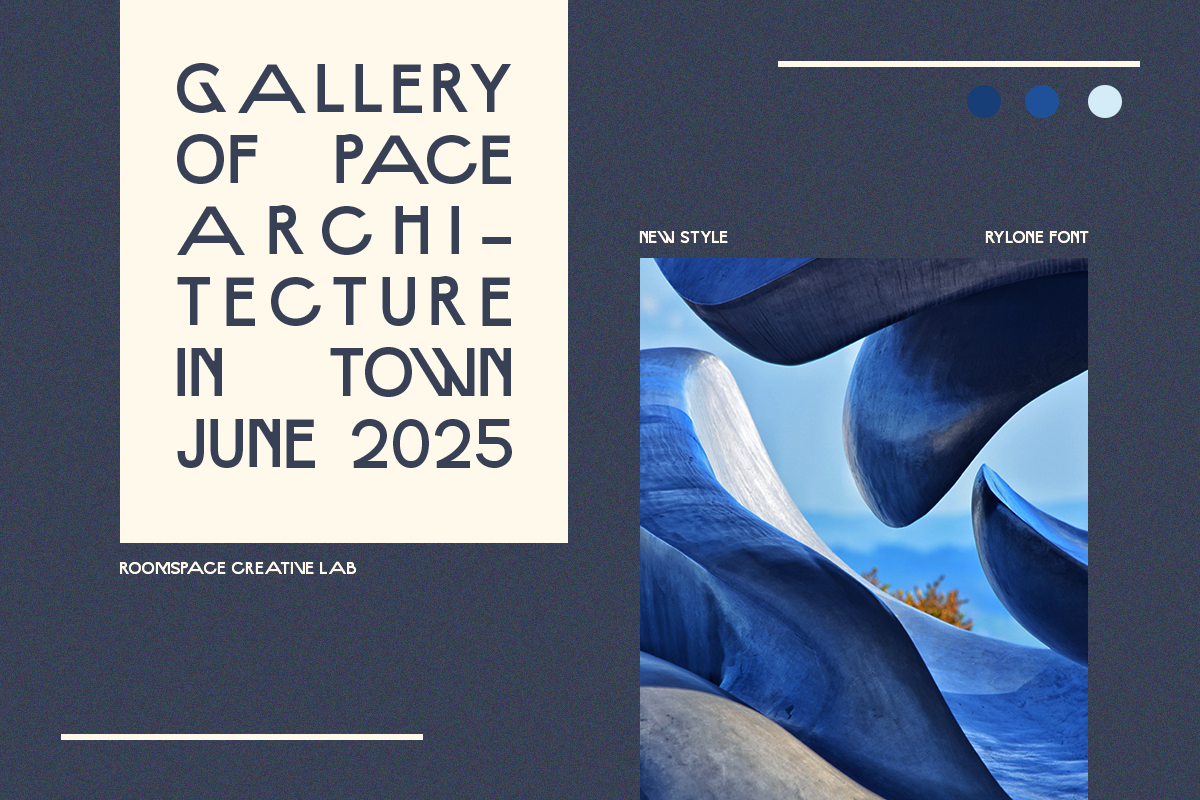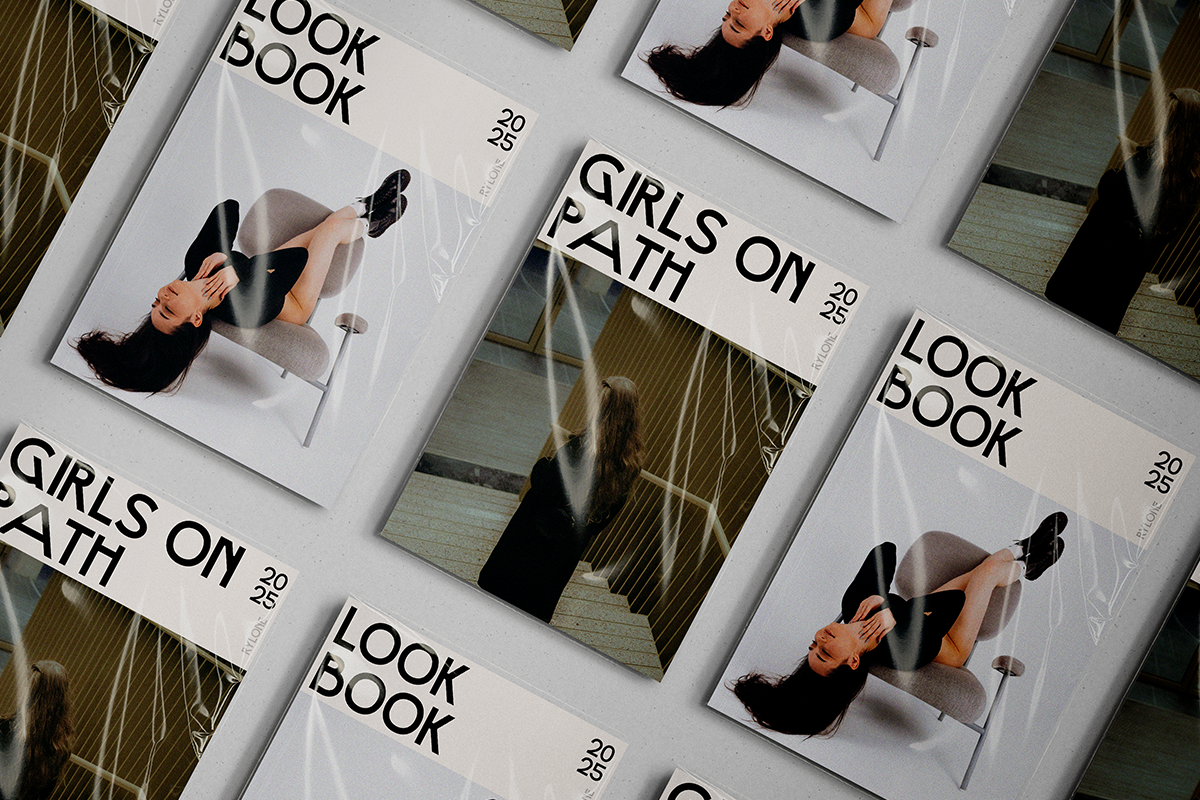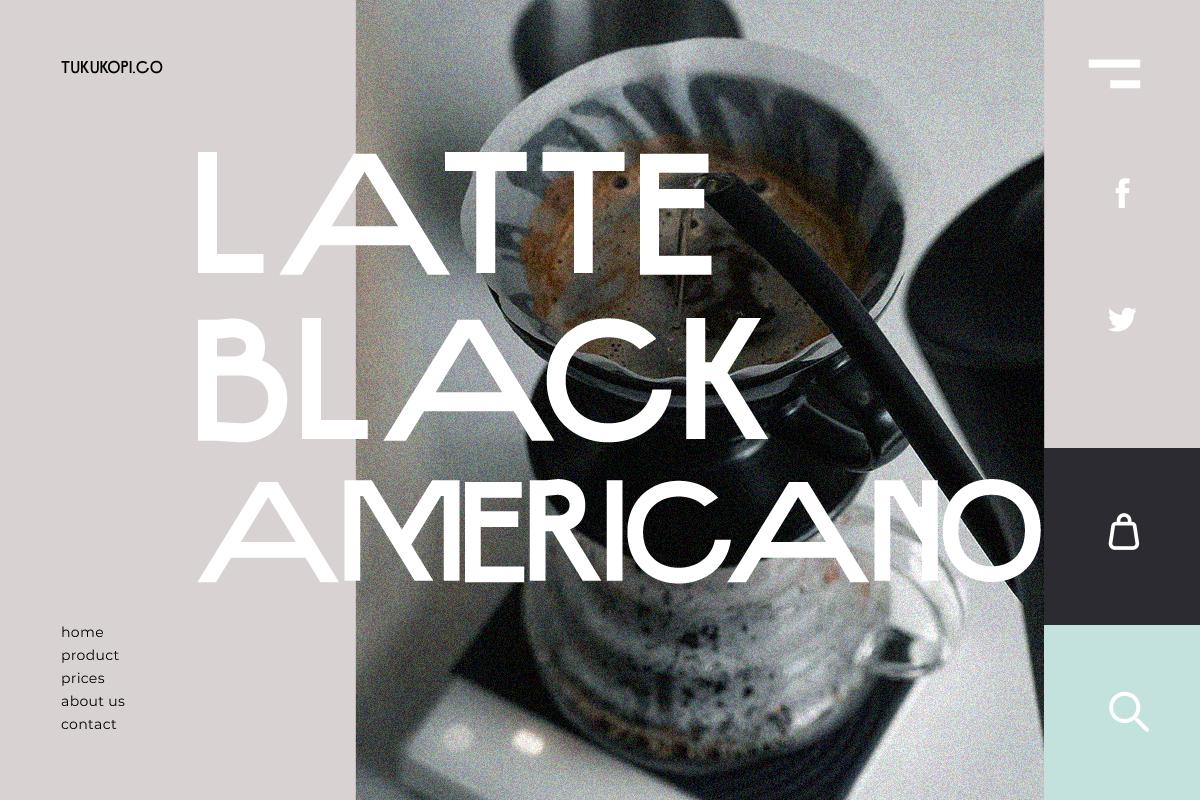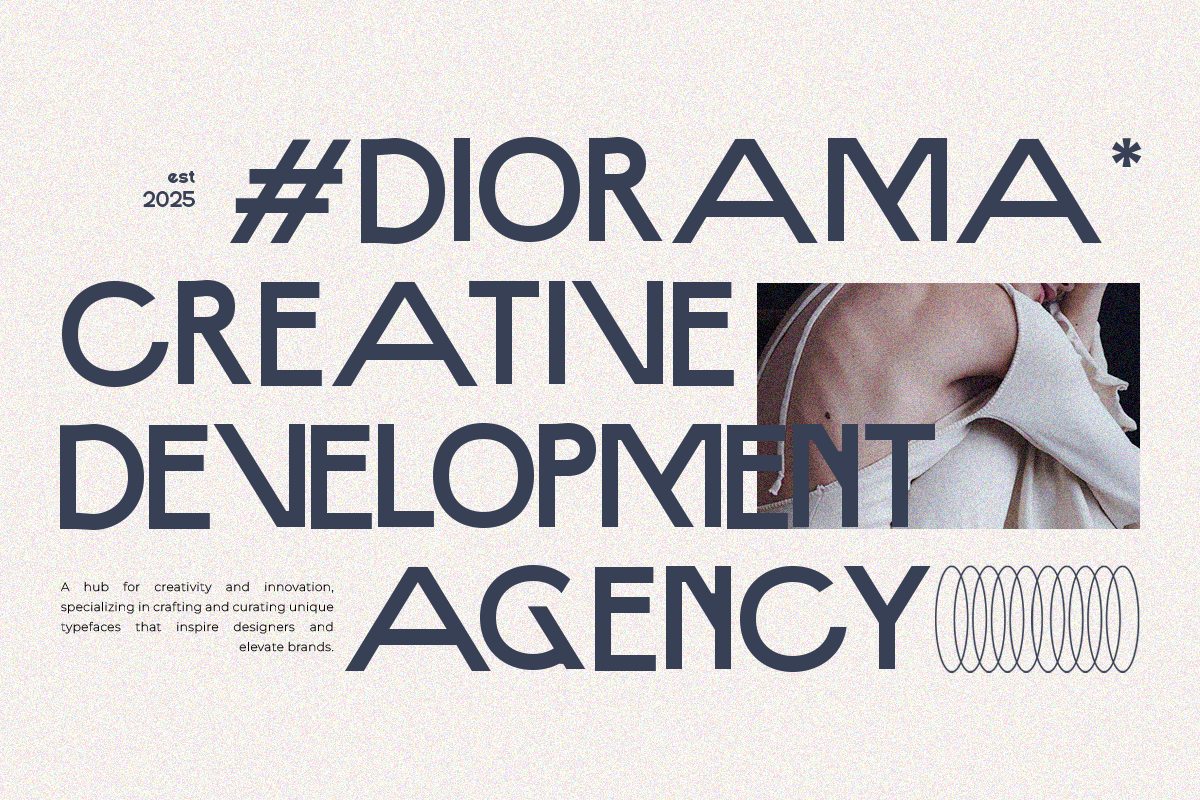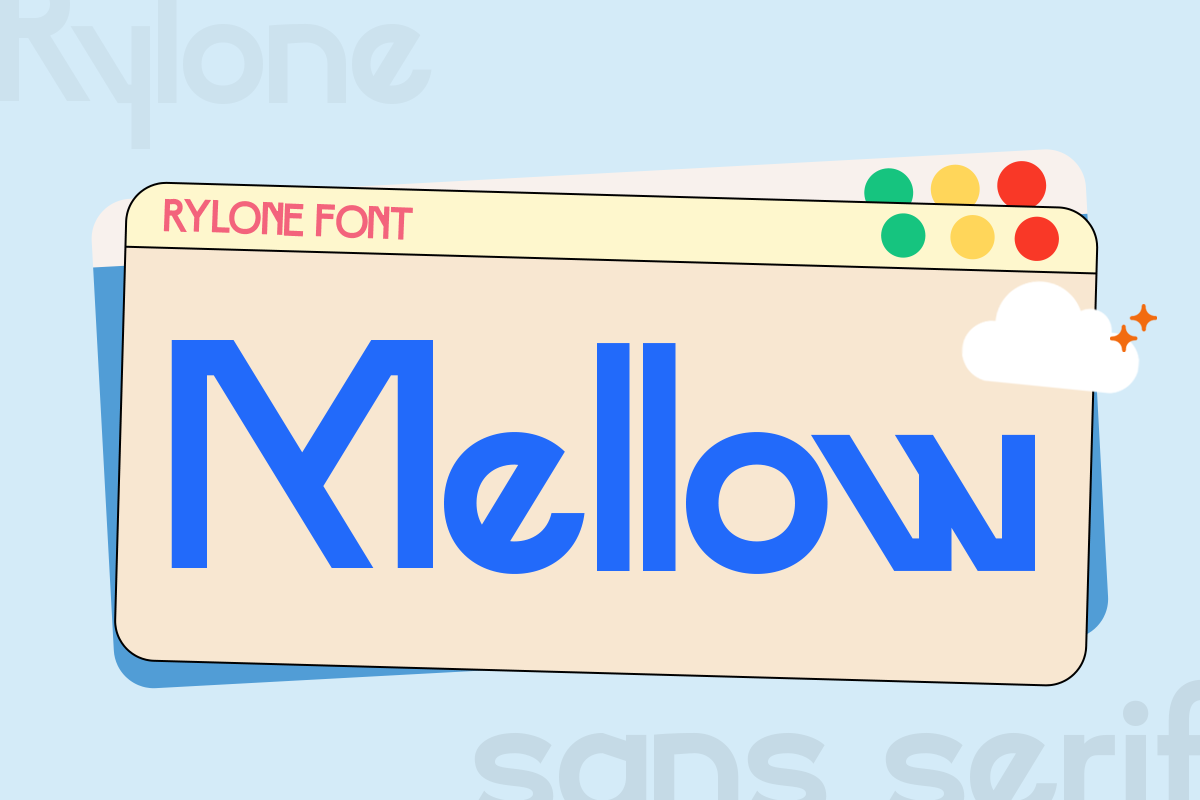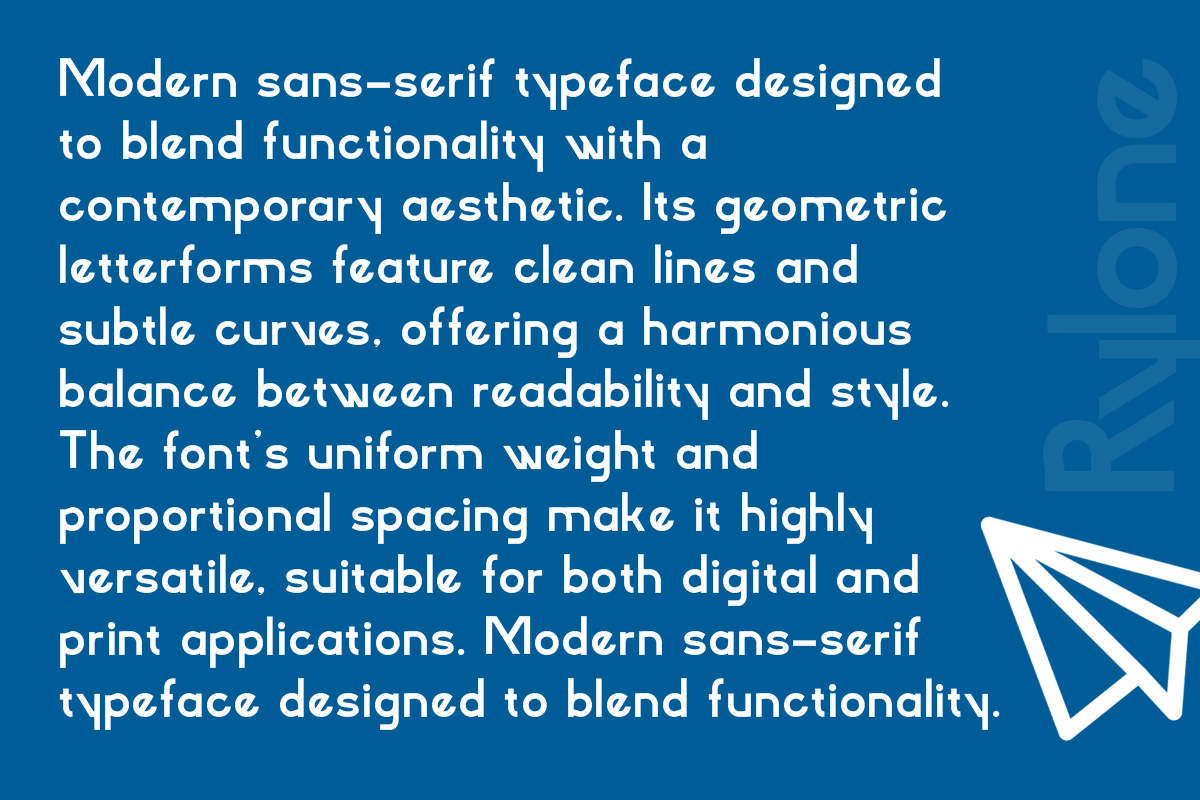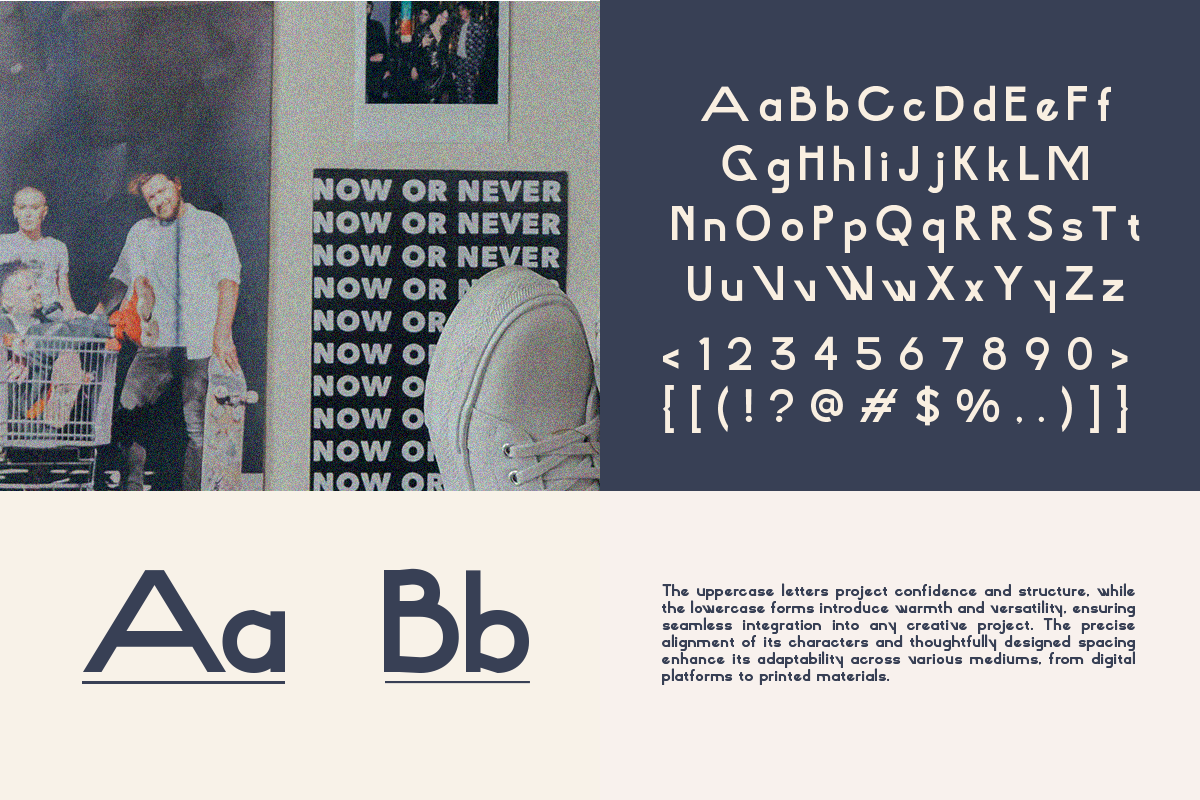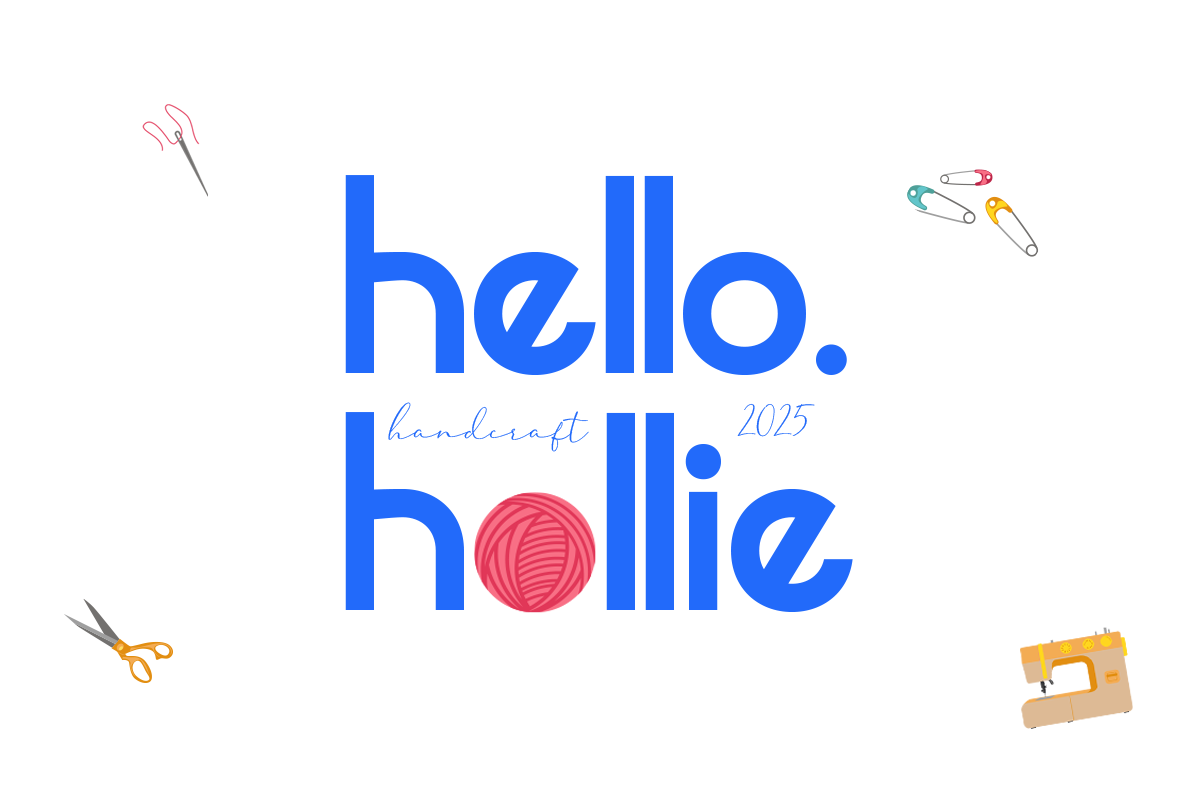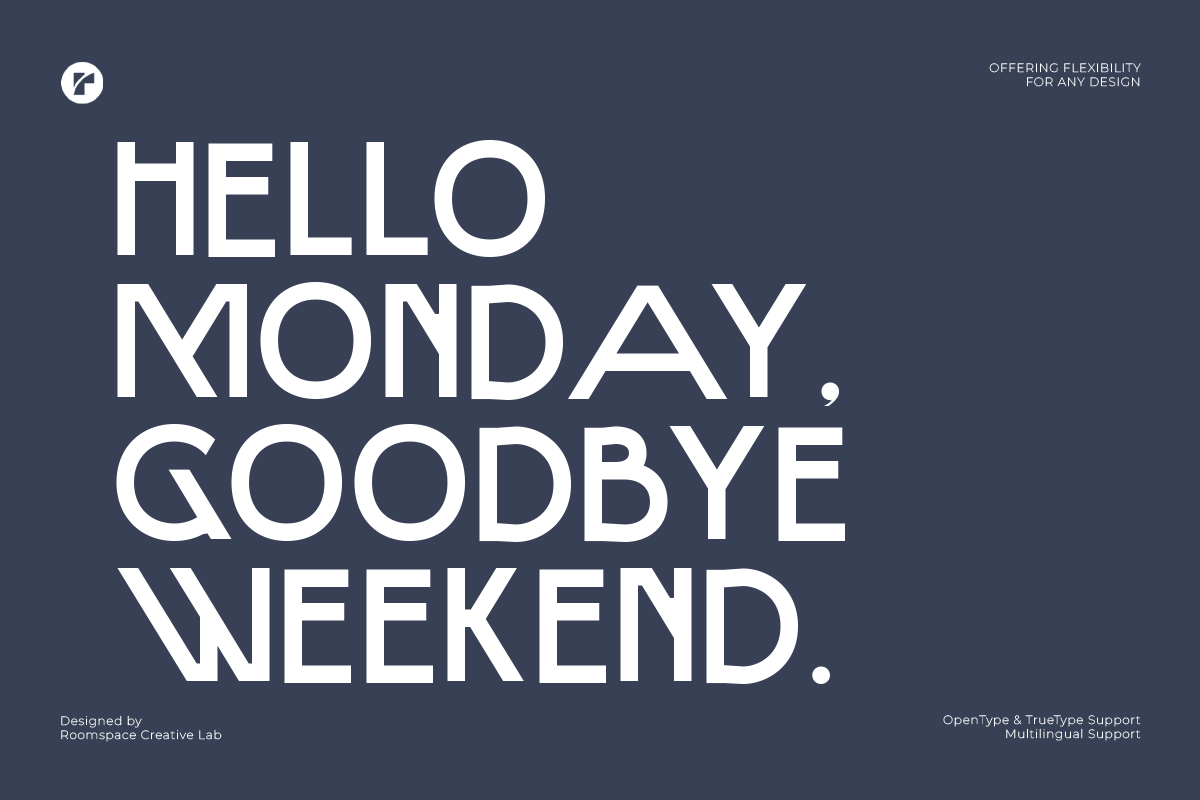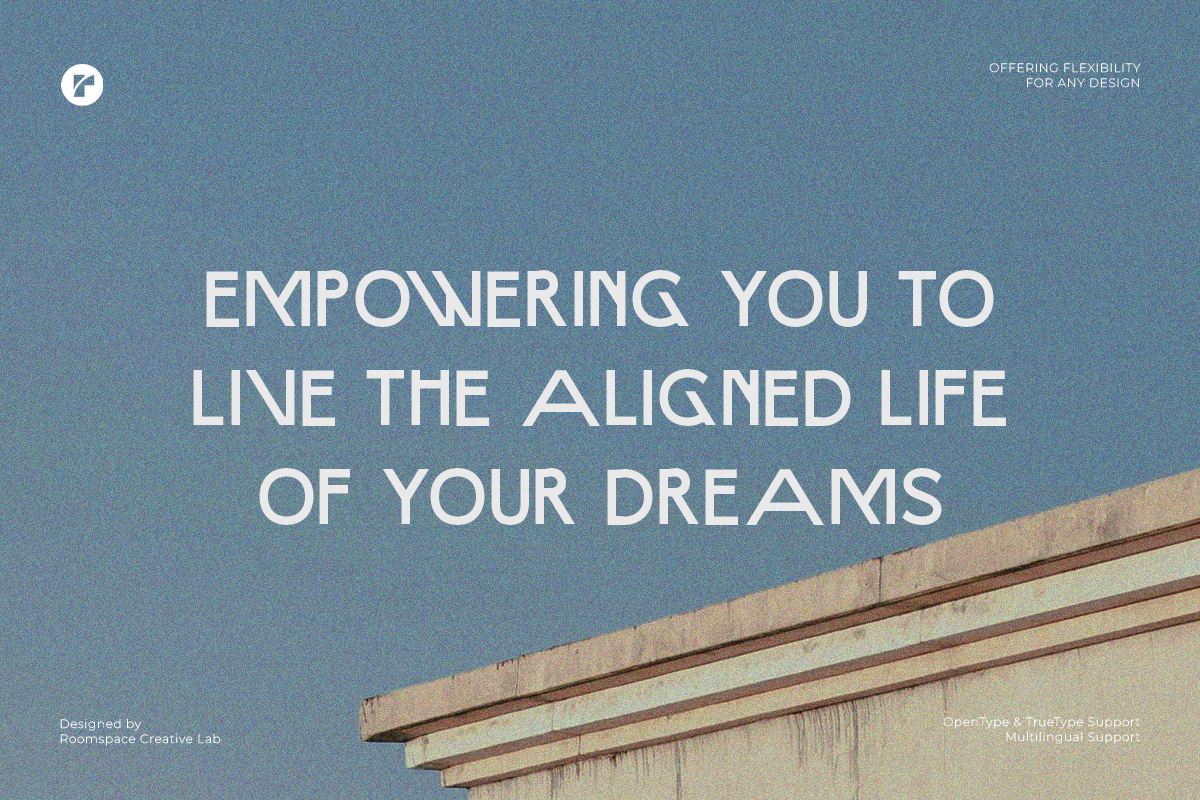
Modern Trendy - Rylone Sans Serif
Rylone is a modern sans serif font designed to offer flexibility and style for a wide range of design projects. With its clean and minimal aesthetic, Rylone brings a unique touch to your designs while ensuring excellent readability.
This font features a modern sans serif style with a unique touch, making it ideal for branding, logo design, posters, and editorial layouts. Its high readability and versatility make it a great choice for professional and creative projects alike. Rylone includes OpenType and TrueType formats with multilingual support, ensuring compatibility with global projects and a variety of design tools.
Whether you’re working on branding, logos, or typography, Rylone provides a perfect blend of elegance, professionalism, and functionality. Add Rylone to your design collection today and elevate your creative work to the next level!